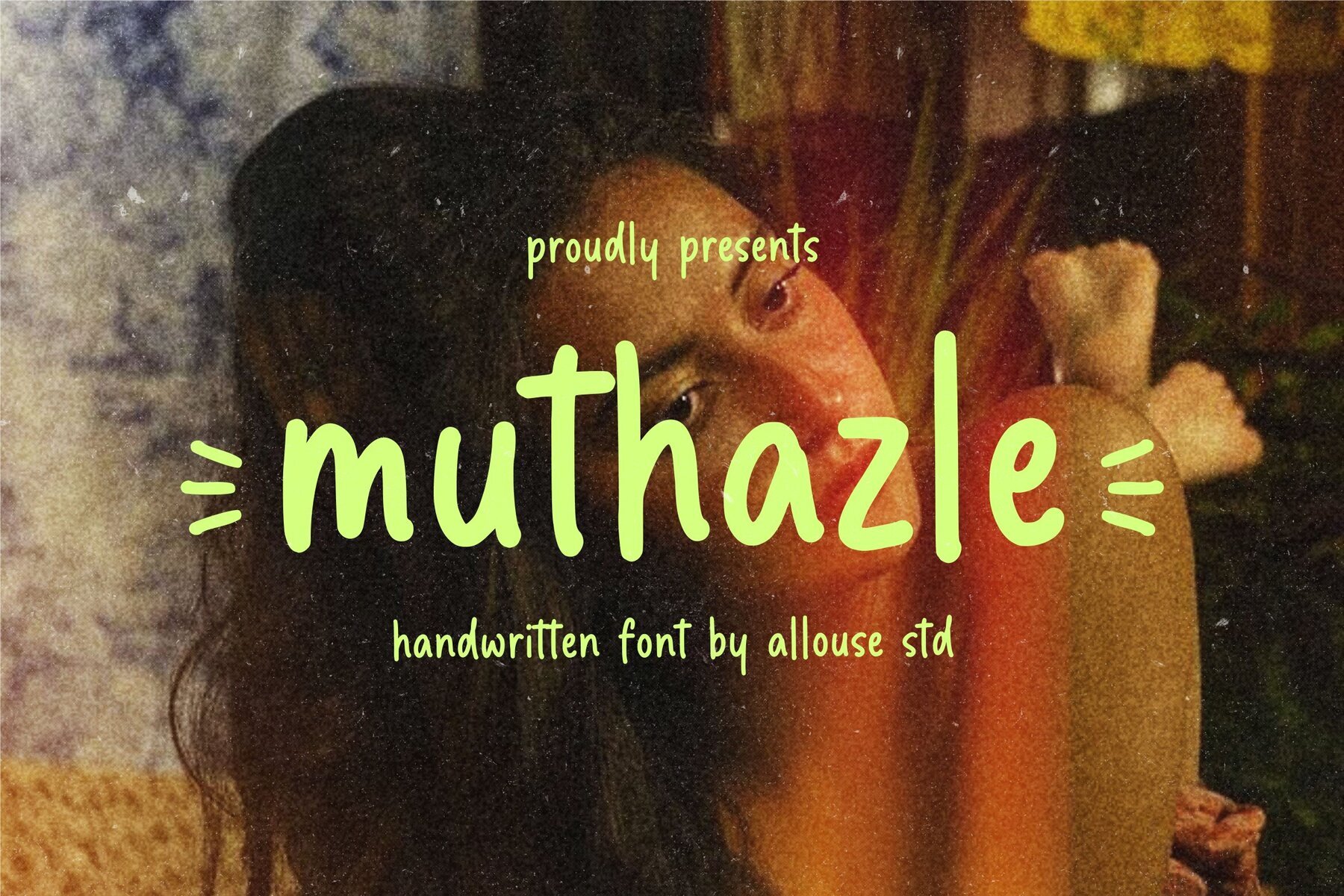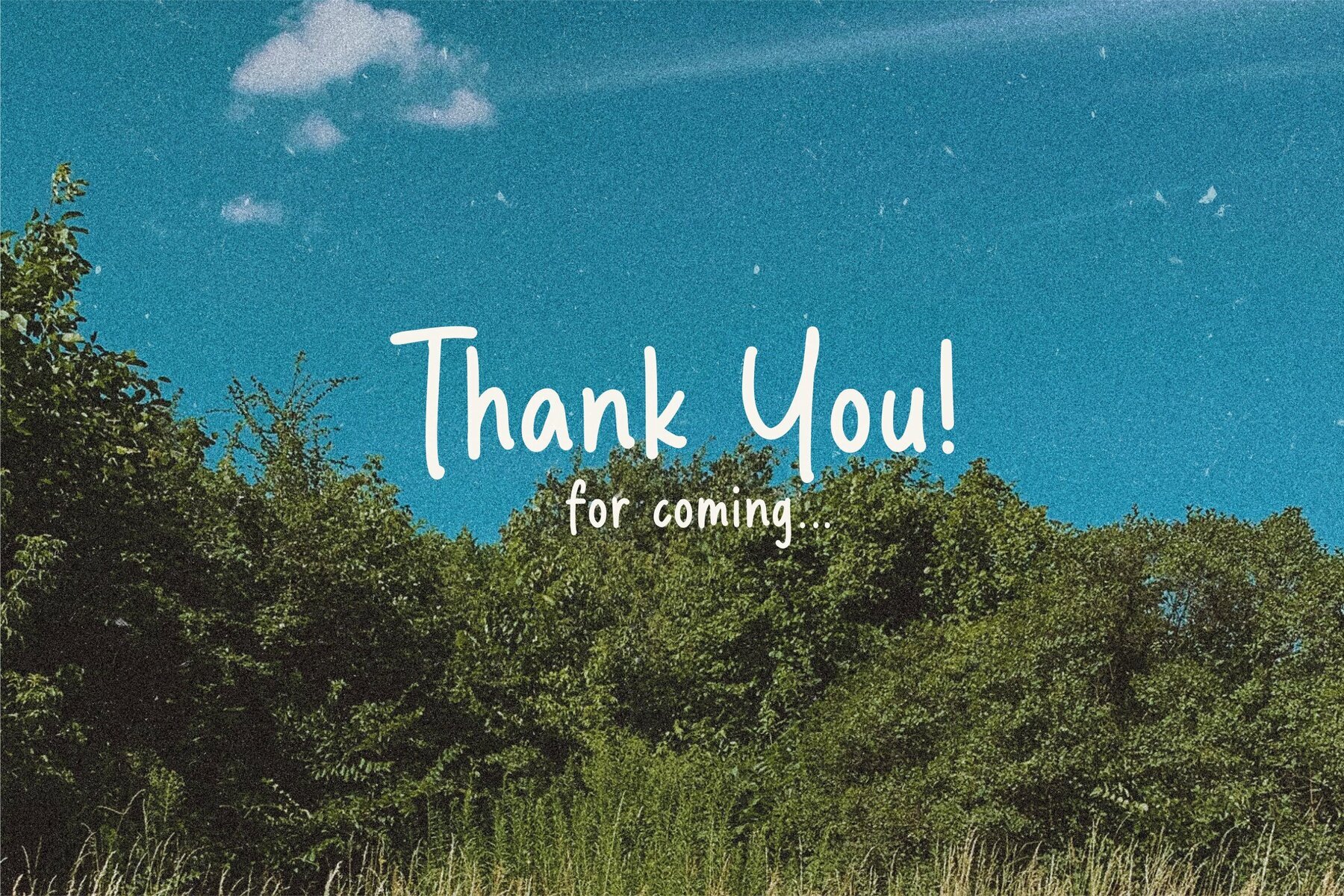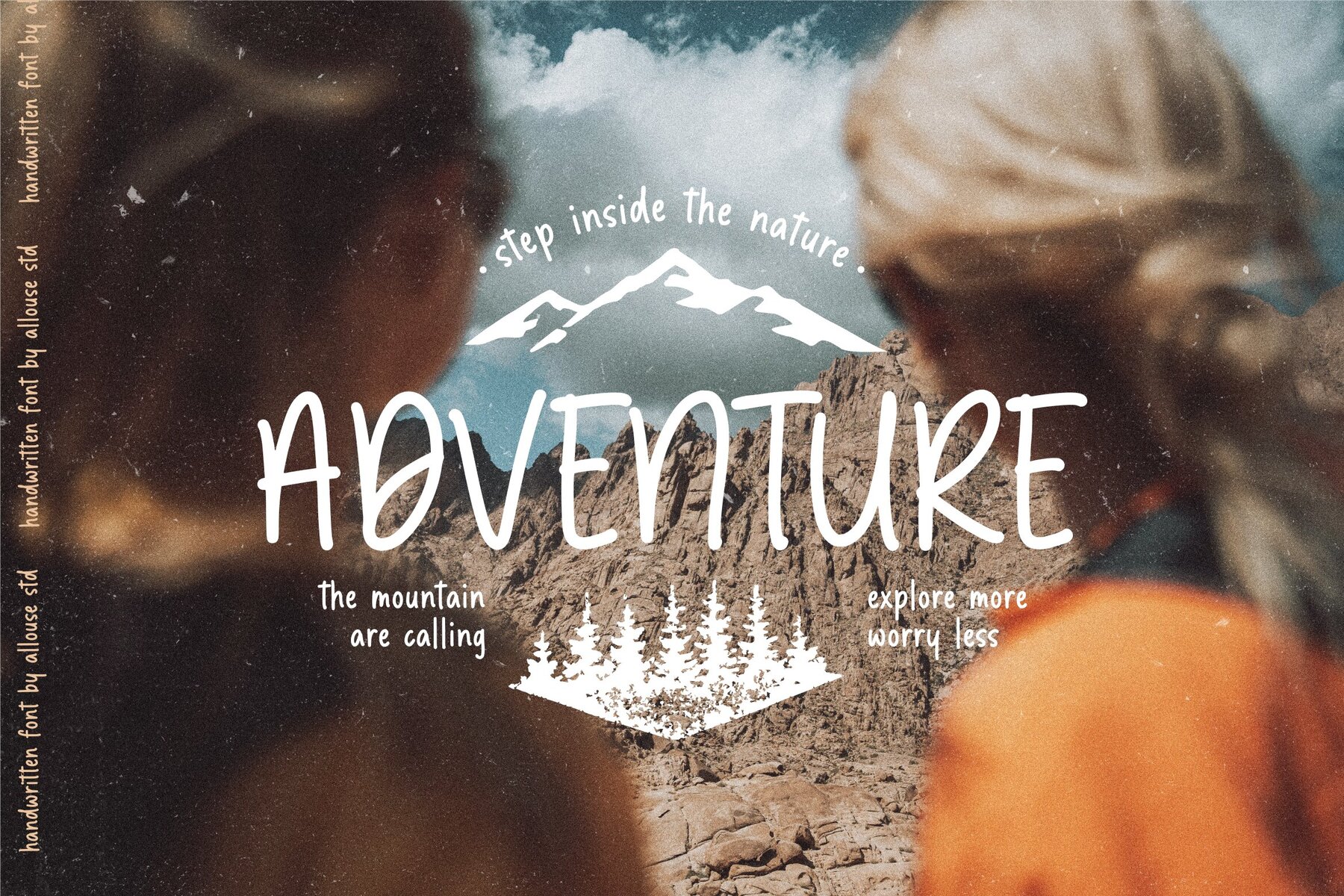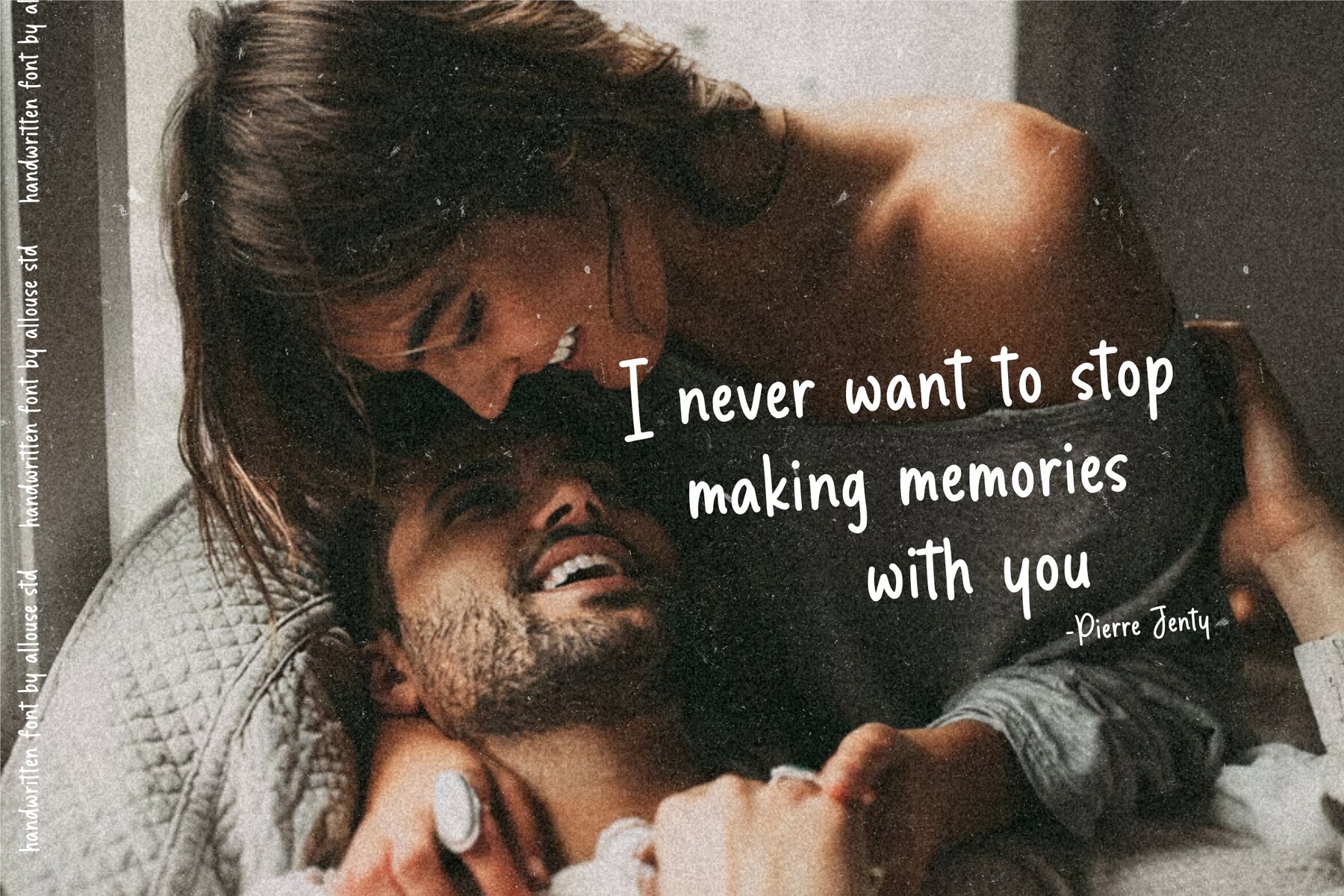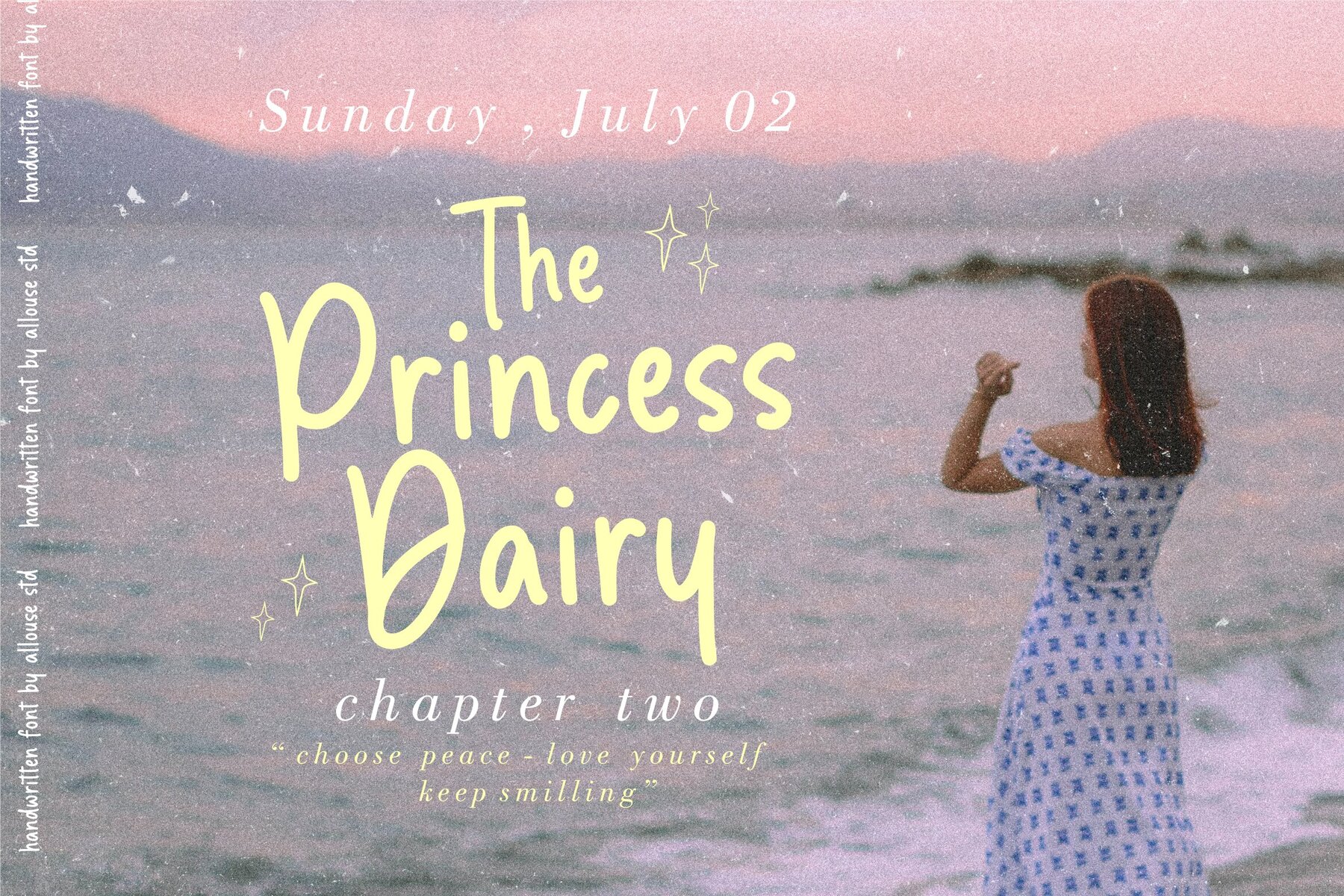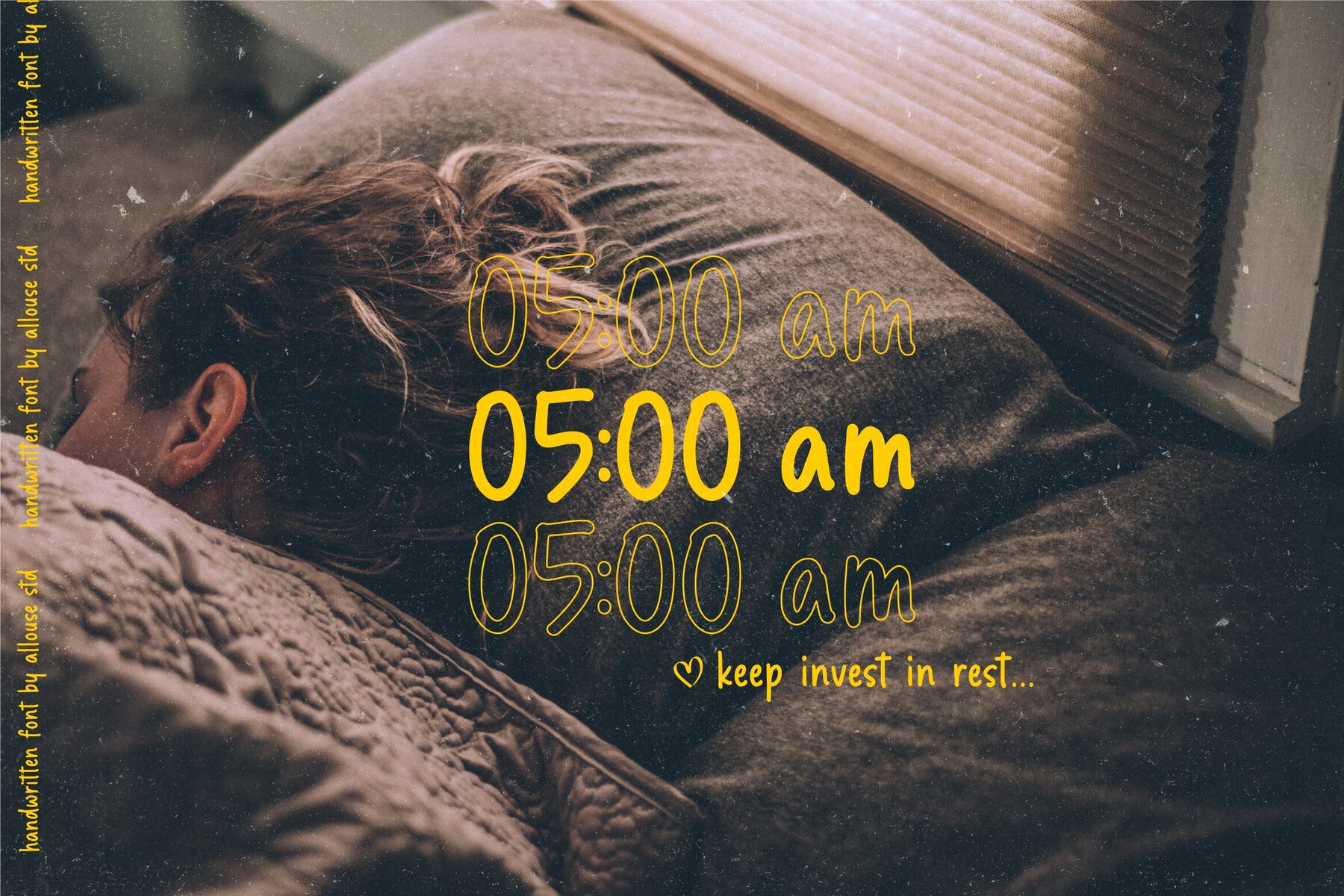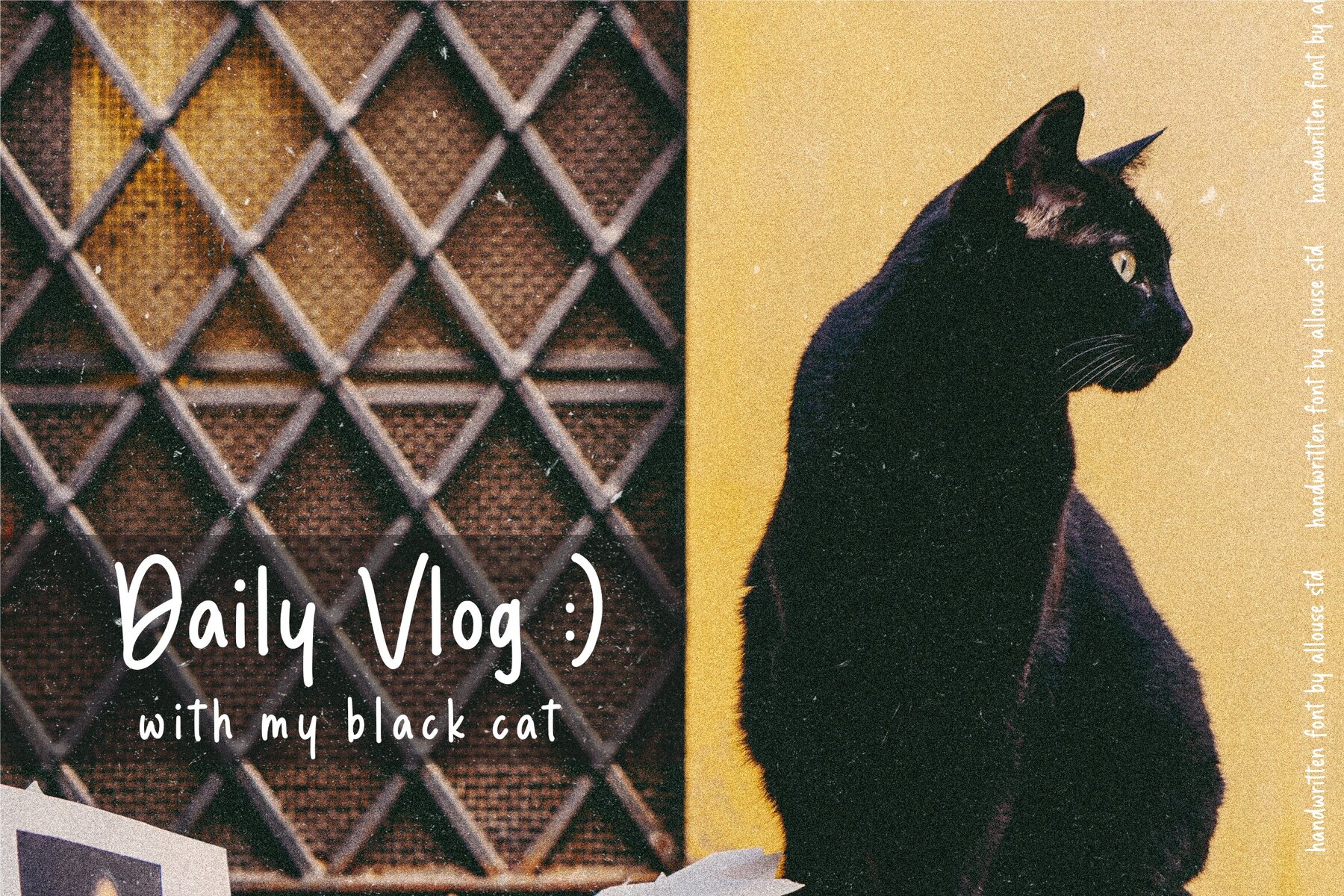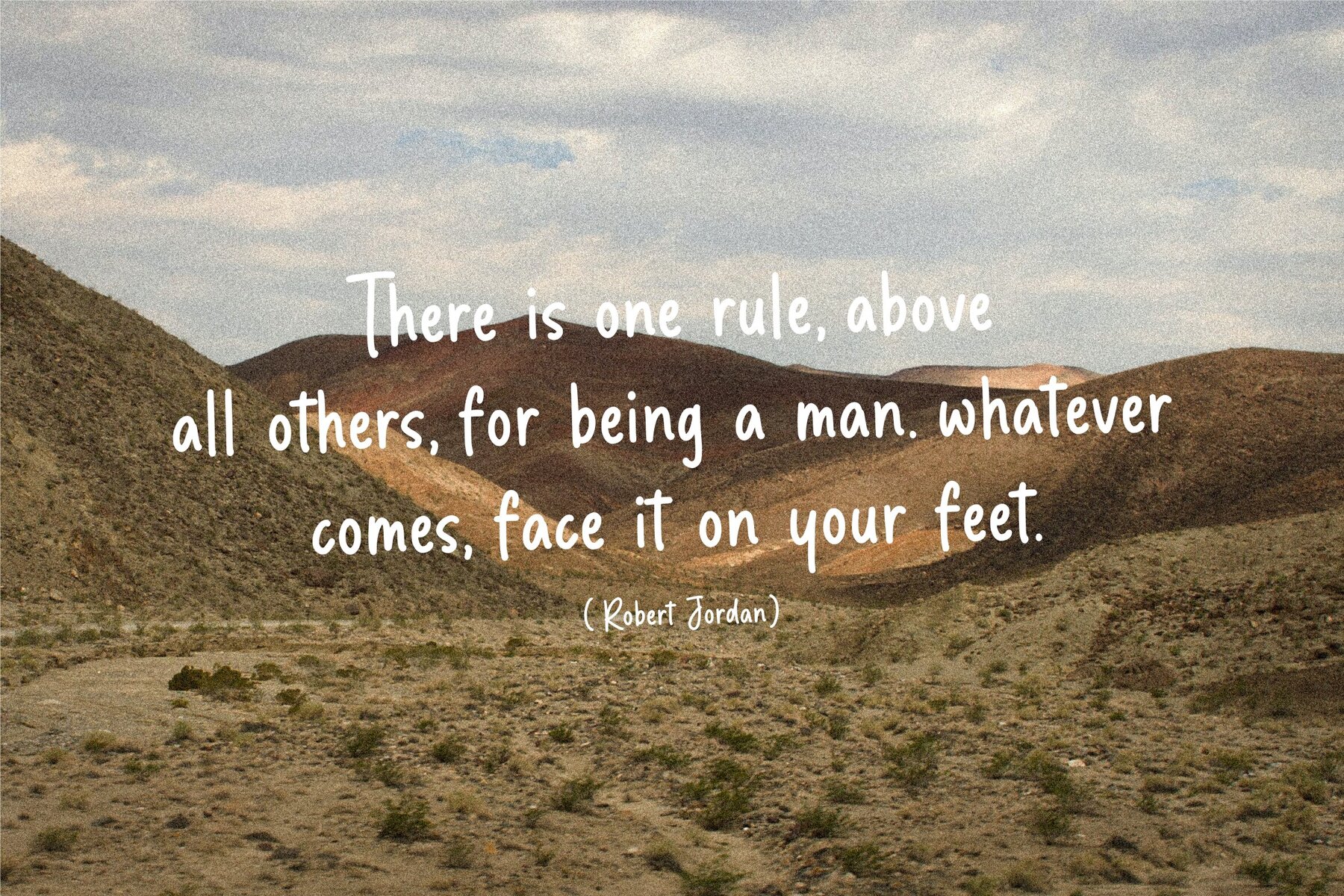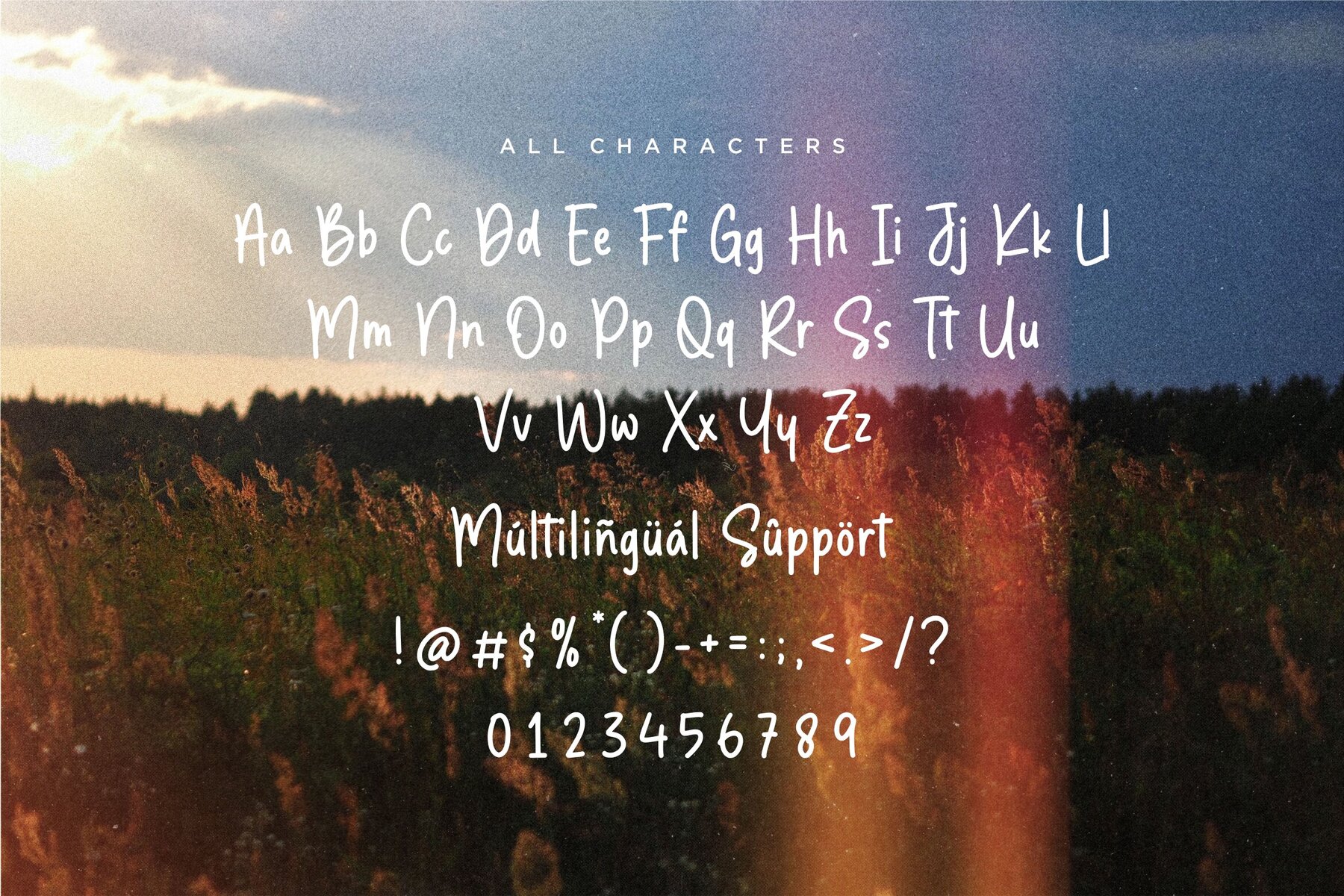
Muthazle Font
Muthazle
The Muthazle font offers a sophisticated and versatile typography solution suitable for a wide array of applications. Ideal for enhancing product packaging, elevating brand identity projects, and crafting engaging magazine layouts, this font shines in both print and digital formats. Whether applied to social media graphics, elegant wedding invites, or as text that complements a background, Muthazle delivers expressive and compelling visual impact.Muthazle Font by Allouse.Studio